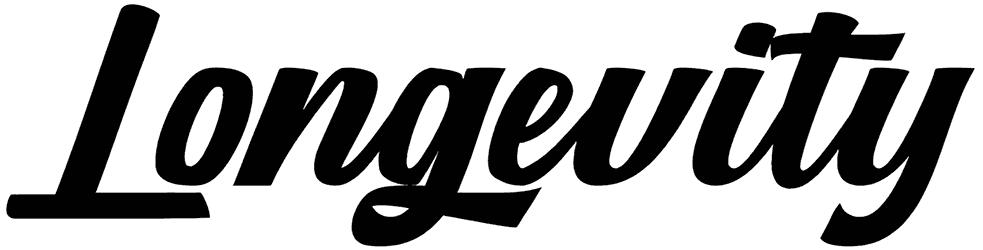
Longevity Font
If you think poster fonts and their default eye-grabbing styles are overrated, sit tight because we’re about to restore your faith in them with another example. Longevity here can instantly become your all-time favorite when you let it take your art to the next level with its energetic attitude just once.
Next thing you know, you’re constantly using this baseball font for your website banners about the summer special sales events for apparel online shops, chess matches, games, and more.